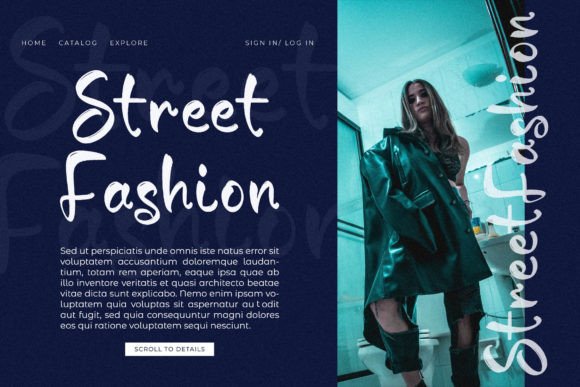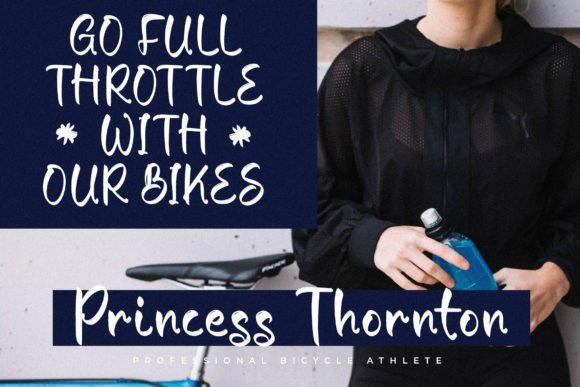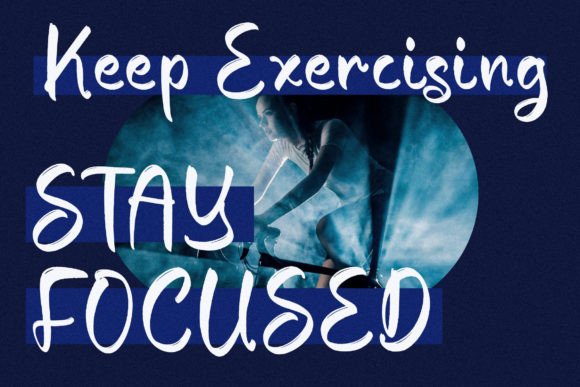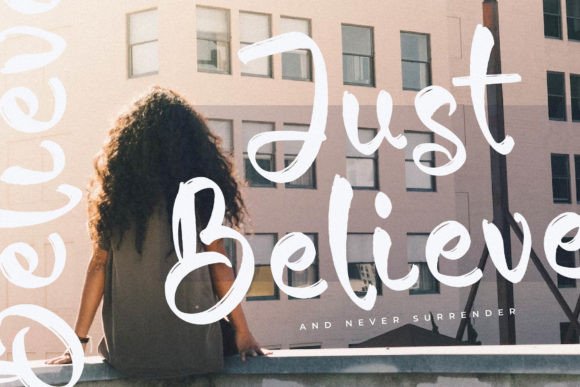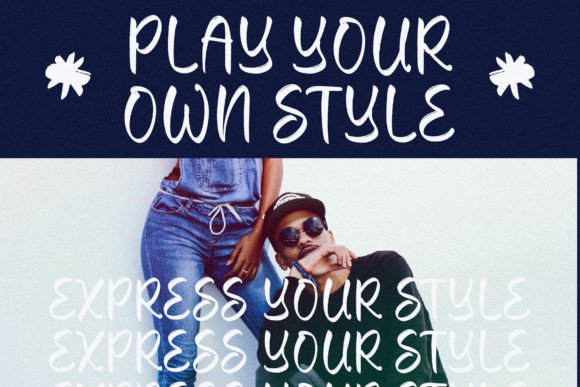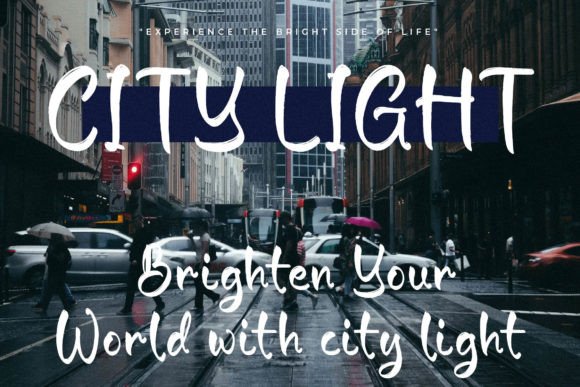
Gafstery Font: Elevate Your Designs with a Touch of Elegance
Are you a designer or crafter looking for a font that can add a touch of elegance and sophistication to your projects? Look no further than Gafstery Font, a stunning sans brush handwritten font that’s perfect for a wide range of applications. In this article, we’ll explore the features and benefits of Gafstery Font, and show you how it can elevate your designs to the next level.
What is Gafstery Font?
Gafstery Font is a beautiful sans brush handwritten font that’s designed to bring a touch of elegance and sophistication to your projects. With its smooth, flowing lines and delicate brushstrokes, this font is perfect for creating stunning designs that stand out from the crowd. Whether you’re working on a logo, branding project, homeware design, or any other project that requires a beautiful script taste, Gafstery Font is the perfect choice.
Features of Gafstery Font
So, what makes Gafstery Font so special? Here are just a few of its key features:
- Unique and elegant design: Gafstery Font has a distinctive, hand-crafted look that’s sure to turn heads.
- Sans brush handwritten style: This font combines the clean lines of sans serif fonts with the warmth and personality of handwritten scripts.
- Highly versatile: Gafstery Font can be used for a wide range of projects, from logos and branding to homeware designs, product packaging, and more.
- Easy to read: Despite its elegant design, Gafstery Font is highly legible, making it perfect for use in body text as well as headlines.
Uses for Gafstery Font
So, what can you use Gafstery Font for? The possibilities are endless! Here are just a few ideas to get you started:
- Logos and branding: Create a stunning logo or brand identity with Gafstery Font that’s sure to make your business stand out.
- Homeware designs: Add a touch of elegance to your homeware designs, from cushions and mugs to wall art and more.
- Product packaging: Make your product packaging stand out with Gafstery Font, perfect for food, fashion, and beauty brands.
- Mugs and quotes: Create inspiring quotes and sayings for mugs, t-shirts, and other products.
- Posters and shopping bags: Use Gafstery Font to create eye-catching posters and shopping bags that showcase your brand’s personality.
- T-shirts and book covers: Design stunning t-shirts and book covers with Gafstery Font that’s sure to turn heads.
- Name cards and invitation cards: Create beautiful name cards and invitation cards with Gafstery Font that’s perfect for weddings, parties, and other special events.
- Greeting cards and labels: Use Gafstery Font to create stunning greeting cards and labels that add a touch of elegance to any gift.
- Photography and watermark: Add a professional touch to your photography with Gafstery Font, perfect for watermarks and credits.
Why Choose Gafstery Font?
So, why should you choose Gafstery Font for your next project? Here are just a few reasons:
- Unique and distinctive: Gafstery Font is a one-of-a-kind font that’s sure to make your designs stand out.
- Elegant and sophisticated: This font adds a touch of elegance and sophistication to any design, perfect for high-end brands and luxury products.
- Highly versatile: Gafstery Font can be used for a wide range of projects, from logos and branding to homeware designs and product packaging.
In conclusion, Gafstery Font is a stunning sans brush handwritten font that’s perfect for designers and crafters looking to add a touch of elegance and sophistication to their projects. With its unique and distinctive design, highly versatile uses, and ease of use, Gafstery Font is the perfect choice for any project that requires a beautiful script taste. So why wait? Download Gafstery Font today and start creating stunning designs that stand out from the crowd!